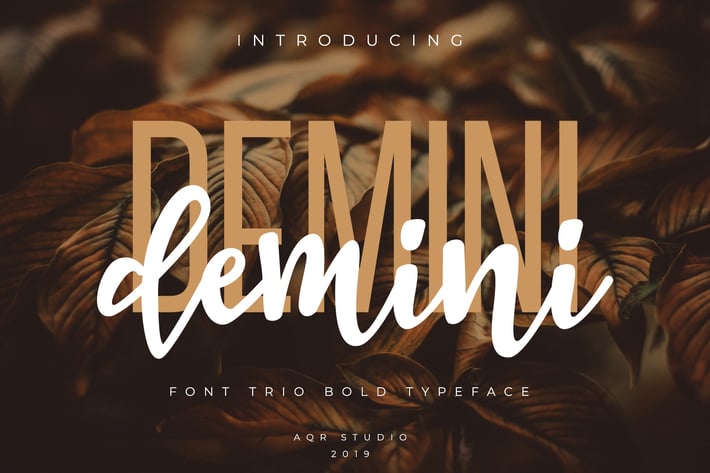
Demini Font Trio with ornamen
Demini is a handwritten calligraphy font with style bold typeface and 3rd combination beauty font and bonus ornament. It's perfect for branding, event invitations, beautiful Instagram posts, wedding, and many more. You will like them! :)